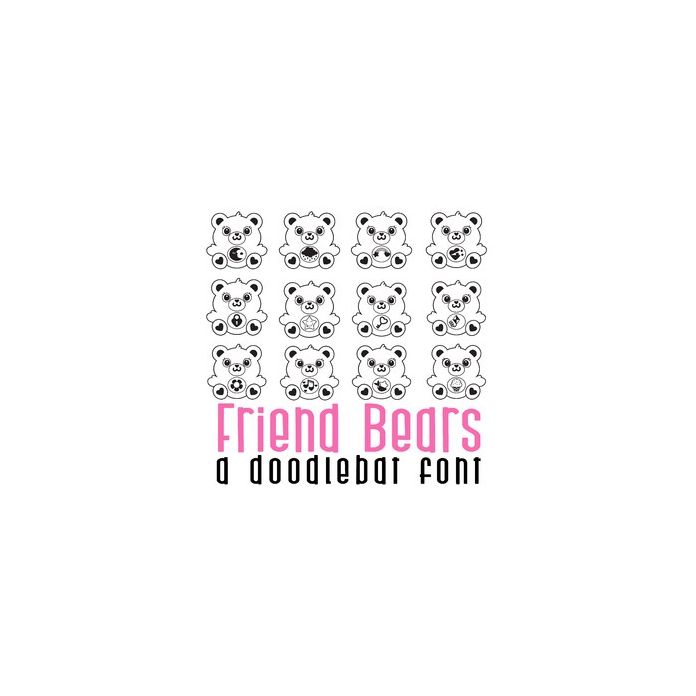
Friend Bears Doodlebat Font
This adorable doodlebat font features 26 fun bears perfect for cards, crafts, gifts, parties, planner stickers, scrapbook pages, classrooms and more!